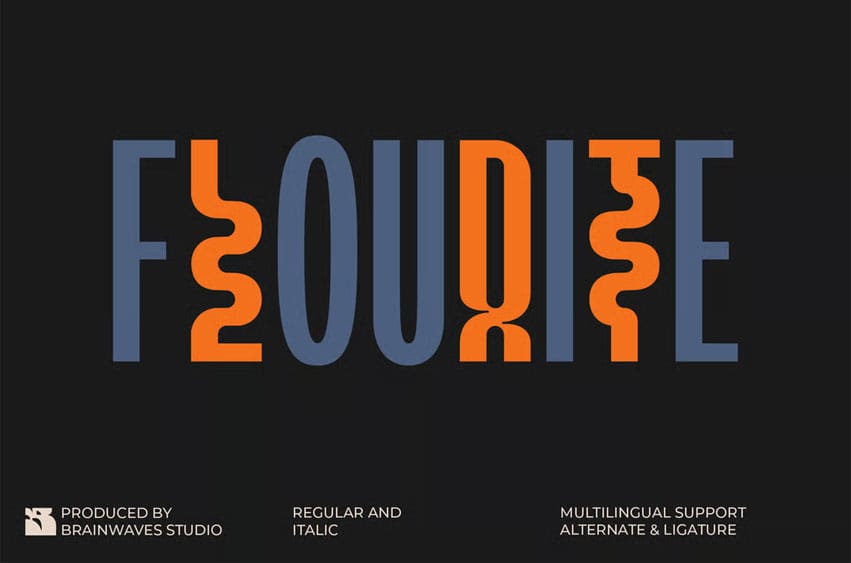
Flourite Font is a bold and stylish condensed sans serif display font that brings energy and uniqueness to every design. With its playful wave ligatures and sharp vertical elegance, it’s made to grab attention and tell stories visually.
Whether you’re branding a product or designing scroll-stopping social media graphics, Flourite helps your message stand out with character.
Perfect for modern packaging, editorial layouts, logos, and more – Flourite makes typography fun, bold, and expressive.